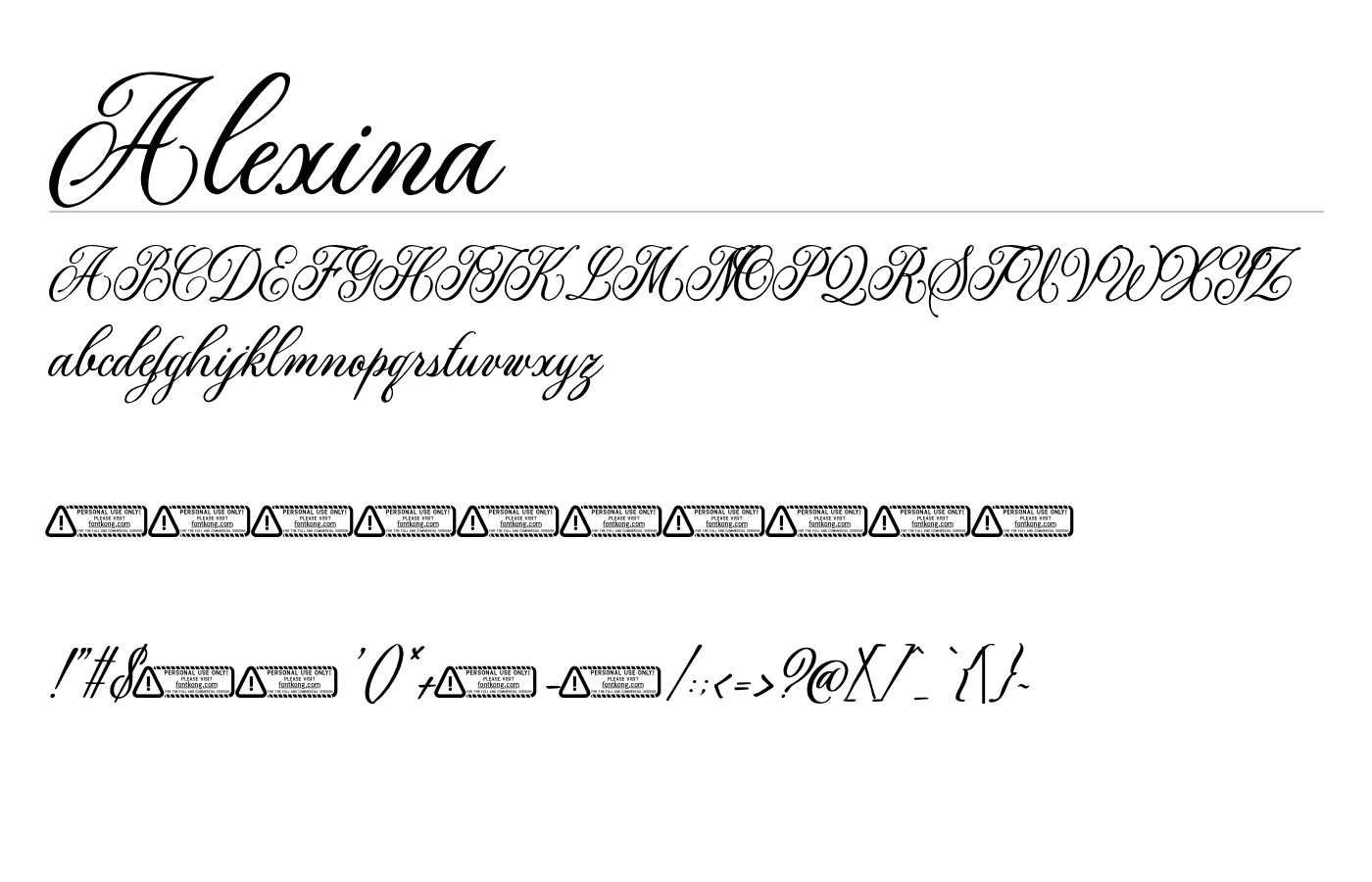
Alexina is a delicate script font with elegant, flowing letterforms that evoke a sense of sophistication and classic charm. Its fine strokes and graceful curves make it perfect for invitations, luxury branding, and any design seeking a refined, timeless appeal. This font shines best in headlines or decorative text where its ornate style can truly stand out.
Alexina Font
About Alexina Font